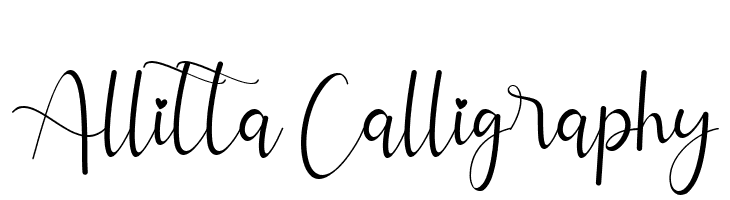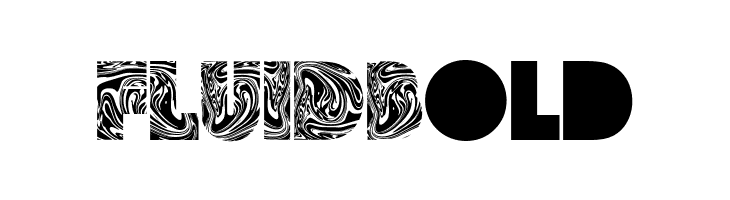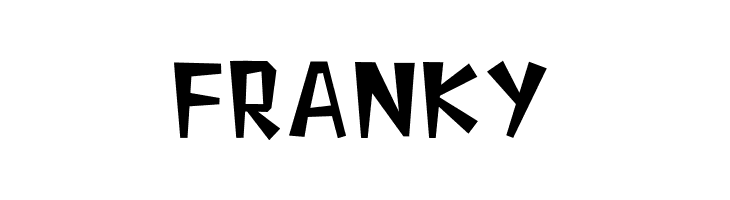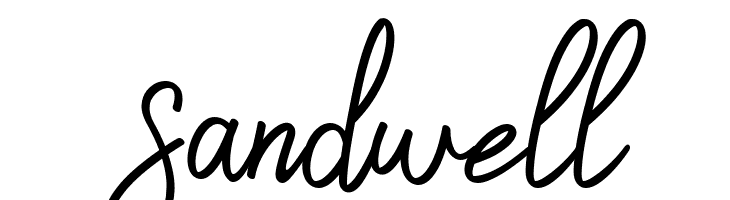
A bold, angular font with a geometric, stencil-like appearance.
An elegant, flowing script font with graceful curves and sophisticated style.
An elegant, cursive font with dynamic strokes and artistic flourishes.
A spooky, decorative font with jagged, dripping edges, perfect for Halloween themes.
A fluid and elegant script font with a handwritten appearance.
A jagged, distressed font perfect for spooky and mysterious themes.
A graceful, flowing script font with interconnected letters and a hand-drawn feel.
A flowing, elegant calligraphic font with smooth, continuous strokes.
An elegant, flowing script font with graceful loops and a sophisticated style.
A playful, handwritten font with tall, narrow letters and a whimsical style.